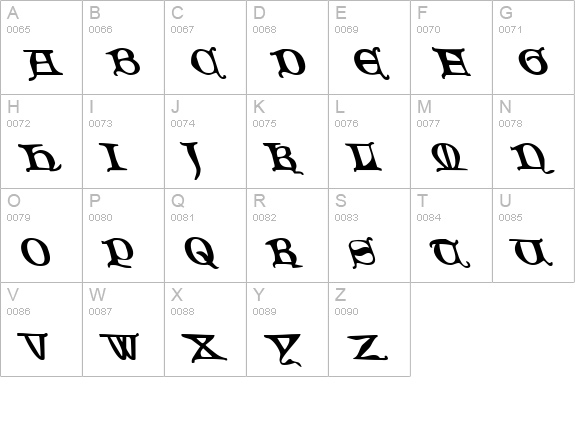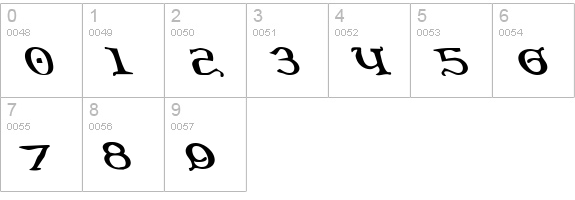
Queen & Country Leftalic Font Details
Queen & Country Leftalic font is a stunning and elegant typeface that exudes sophistication and charm. Its slanted letters convey a sense of movement and style, making it perfect for adding a touch of class to any design project. The graceful curves and unique details of this font make it a versatile choice for a variety of applications, from branding to editorial design. The best part? Queen & Country Leftalic is available for free download at FontsMarket.com, making it accessible to everyone who wants to elevate their designs with a touch of elegance. Whether you're working on a logo, website, or print materials, this font is sure to make a statement and leave a lasting impression. Don't miss out on the opportunity to enhance your projects with the beauty of Queen & Country Leftalic font. Download it today and see the difference it can make in your designs.